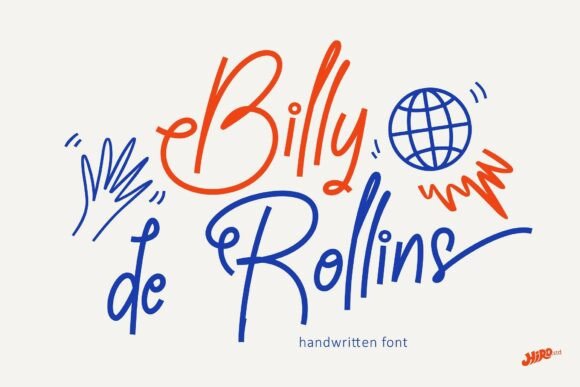
Billy De Rollins Font: Elevate Your Design with Elegance and Playfulness
In the world of typography, fonts play a crucial role in conveying the tone and personality of a brand, project, or message. Among the numerous fonts available, Billy De Rollins stands out as a stylish handwritten script font that embodies elegance and playfulness. With its flowing curves and natural rhythm, Billy De Rollins adds a personal, charming touch to various design projects, including invitations, branding, and social media.
The Unique Characteristics of Billy De Rollins Font
Billy De Rollins is a carefully crafted font that boasts a distinctive, hand-written appearance. Its elegant strokes and smooth curves create a sense of fluidity, making it perfect for designs that require a touch of sophistication and whimsy. The font’s natural rhythm and flowing lines evoke a sense of playfulness, adding a personal touch to any project.
Key Features of Billy De Rollins Font:
- Elegant and Playful: Billy De Rollins strikes the perfect balance between elegance and playfulness, making it suitable for a wide range of design projects.
- Handwritten Script: The font’s handwritten script style adds a personal, charming touch to invitations, branding, and social media.
- Flowing Curves: The font’s flowing curves and natural rhythm create a sense of fluidity, making it perfect for designs that require a touch of sophistication and whimsy.
- Versatile: Billy De Rollins is a versatile font that can be used for various design projects, from formal invitations to social media graphics.
Applications of Billy De Rollins Font
Billy De Rollins font is an excellent choice for various design projects, including:
Invitations and Events
Billy De Rollins font is perfect for creating elegant and playful invitations for weddings, parties, and other special events. Its flowing curves and natural rhythm add a touch of sophistication and whimsy, making it ideal for:
- Wedding invitations
- Birthday party invitations
- Graduation announcements
- Other special event invitations
Branding and Marketing
Billy De Rollins font can also be used for branding and marketing materials, such as:
- Logos
- Business cards
- Brochures
- Social media graphics
The font’s elegant and playful style makes it perfect for businesses that want to convey a sense of sophistication and approachability.
Social Media and Digital Content
Billy De Rollins font is also suitable for social media and digital content, including:
- Social media posts
- Blog headers
- Email newsletters
- Digital graphics
The font’s flowing curves and natural rhythm make it perfect for creating engaging and visually appealing digital content.
Why Choose Billy De Rollins Font?
Billy De Rollins font offers several benefits, including:
Unique and Creative
Billy De Rollins font is a unique and creative choice for designers who want to add a personal touch to their projects. Its elegant and playful style makes it perfect for designs that require a touch of sophistication and whimsy.
Easy to Read and Versatile
Billy De Rollins font is easy to read and versatile, making it suitable for a wide range of design projects. Its flowing curves and natural rhythm create a sense of fluidity, making it perfect for designs that require a touch of elegance and playfulness.
High-Quality Design
Billy De Rollins font is a high-quality design that is carefully crafted to ensure that it looks great in any project. Its elegant and playful style makes it perfect for designs that require a touch of sophistication and whimsy.
In conclusion, Billy De Rollins font is a stylish handwritten script font that captures elegance and playfulness in every stroke. With its flowing curves and natural rhythm, it adds a personal, charming touch to invitations, branding, and social media. Its graceful design brings warmth, sophistication, and creativity to any project, making it an excellent choice for designers who want to create unique and visually appealing designs.